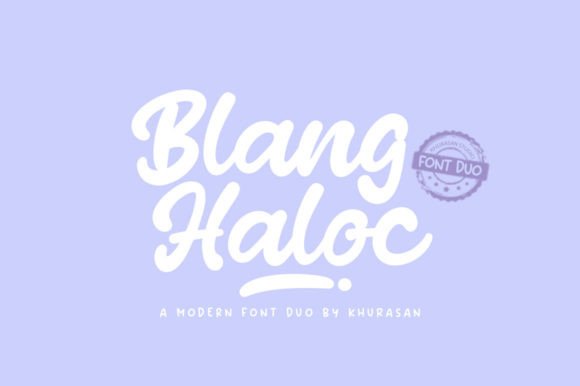
Introducing Blang Haloc Duo Font: Elevate Your Designs with a Fun Handwritten Typeface
In the world of typography, a font can make all the difference in creating stunning designs. If you’re looking for a unique and fun handwritten font to take your designs to the next level, look no further than Blang Haloc Duo Font. This amazing typeface is a script and display font duo that is perfect for a wide range of design projects, from posters and logos to magazines, book covers, banners, and more.
What Makes Blang Haloc Duo Font Special?
- Handwritten Style: Blang Haloc Duo Font boasts a beautiful handwritten style that adds a personal touch to any design project.
- Script and Display Font Duo: This font comes with both script and display versions, offering versatility and flexibility in your designs.
- Perfect for Various Design Projects: Whether you’re working on posters, logos, magazines, book covers, banners, or any other design project, Blang Haloc Duo Font is an excellent choice.
Endless Design Possibilities with Blang Haloc Duo Font
Blang Haloc Duo Font is an incredibly versatile typeface that can be used in a wide range of design applications. Here are some ideas to get you started:
- Posters: Create eye-catching posters for events, promotions, or advertisements with Blang Haloc Duo Font.
- Logos: Design unique and memorable logos for businesses, products, or services using this font.
- Magazines: Use Blang Haloc Duo Font to add a touch of personality to magazine titles, headings, or articles.
- Book Covers: Make your book covers stand out with this beautiful handwritten font.
- Banners: Create stunning banners for websites, social media, or events with Blang Haloc Duo Font.
Tips for Using Blang Haloc Duo Font Effectively
To get the most out of Blang Haloc Duo Font, here are some typography tips to keep in mind:
- Mix and Match: Experiment with combining the script and display versions of Blang Haloc Duo Font to create visually appealing typography.
- Play with Sizes: Use different font sizes to create hierarchy and emphasis in your designs.
- Color Matters: Choose colors that complement the tone and style of your design project.
The Benefits of Using Blang Haloc Duo Font
By incorporating Blang Haloc Duo Font into your design projects, you can enjoy several benefits, including:
- Unique Designs: This font helps you create unique and eye-catching designs that stand out from the crowd.
- Time-Saving: With Blang Haloc Duo Font, you can save time and effort in designing and experimenting with different typography options.
- Professional Look: This font gives your designs a professional and polished look, making them suitable for various applications.
In conclusion, Blang Haloc Duo Font is an exceptional handwritten typeface that can add a touch of personality and whimsy to your design projects. With its versatility, flexibility, and unique style, this font duo is perfect for designers, artists, and crafty enthusiasts looking to create stunning designs. Get your hands on Blang Haloc Duo Font today and take your designs to new heights!